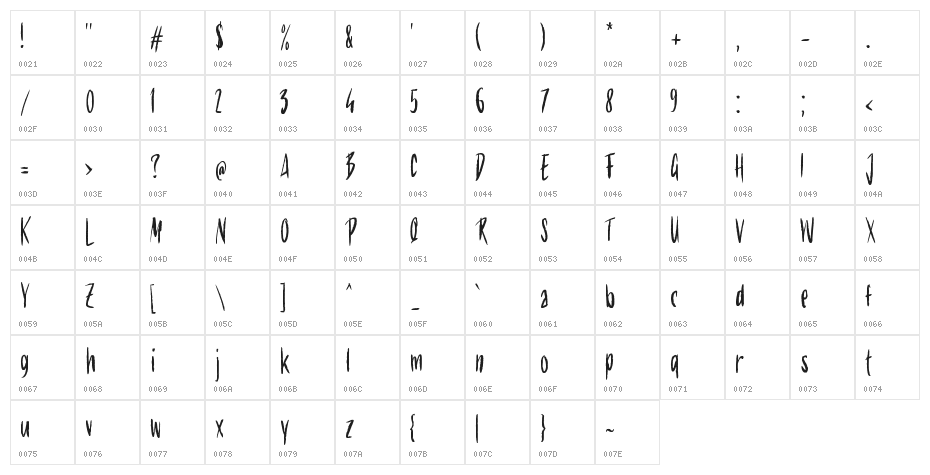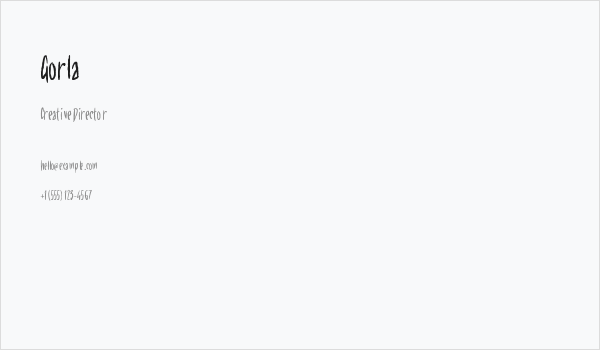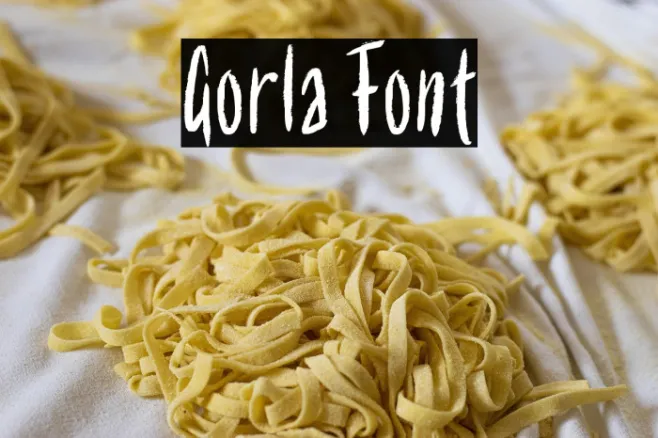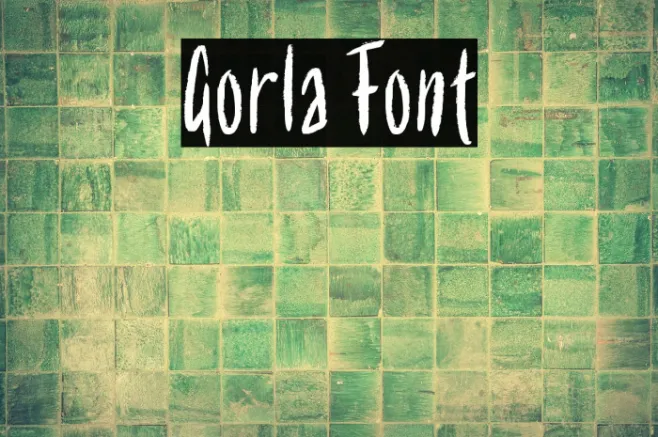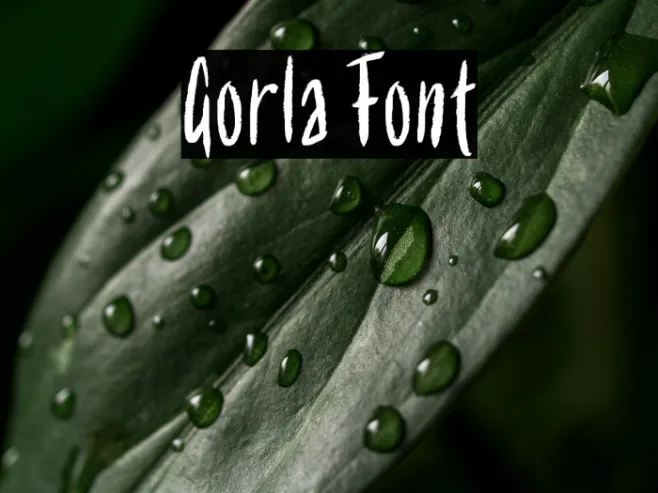
Gorla Font
Gorla Description
This font exudes a bold and expressive style, characterized by its brush-like strokes and dynamic, hand-drawn appearance. The uppercase letters are tall and slightly irregular, giving a sense of movement and energy. The lowercase letters maintain a consistent style, with some letters featuring unique, artistic flourishes. Numbers are bold and clear, matching the overall aesthetic. Special characters are creatively designed, adding to the font's playful and artistic nature. This font is perfect for projects that require a personal touch and a sense of creativity.
GORLA UPPERCASE
GORLA LOWERCASE
GORLA OTHER CHARS
| Proposed Projects | Ideal for artistic projects, branding, posters, and invitations that seek a personal and creative touch. |